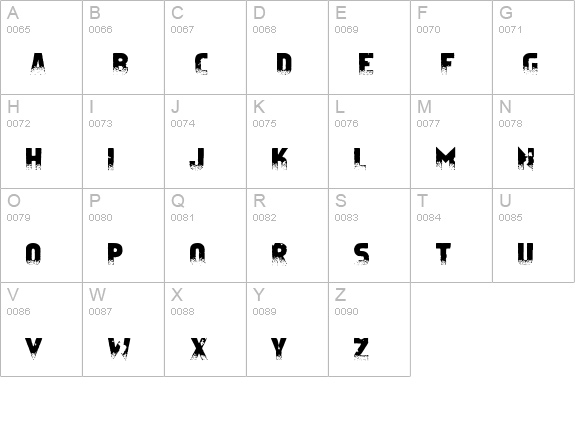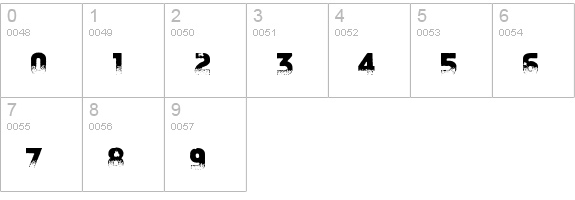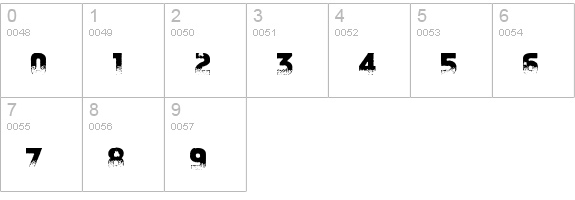
Apostate Cancer Font Details
Apostate Cancer font is a stunning display typeface that exudes a sense of rebellious edge and artistic flair. Its intricate design features sharp angles and bold lines that make a strong statement when used in various design projects. This unique font stands out with its modern and edgy appearance, making it perfect for creating eye-catching headlines, logos, posters, and more. What makes Apostate Cancer font even more appealing is that it is available for free download at FontsMarket.com. This means that you can easily access this striking typeface and use it in your personal and commercial projects without any cost. Embrace the boldness and creativity of Apostate Cancer font and enhance your designs with its impactful style.